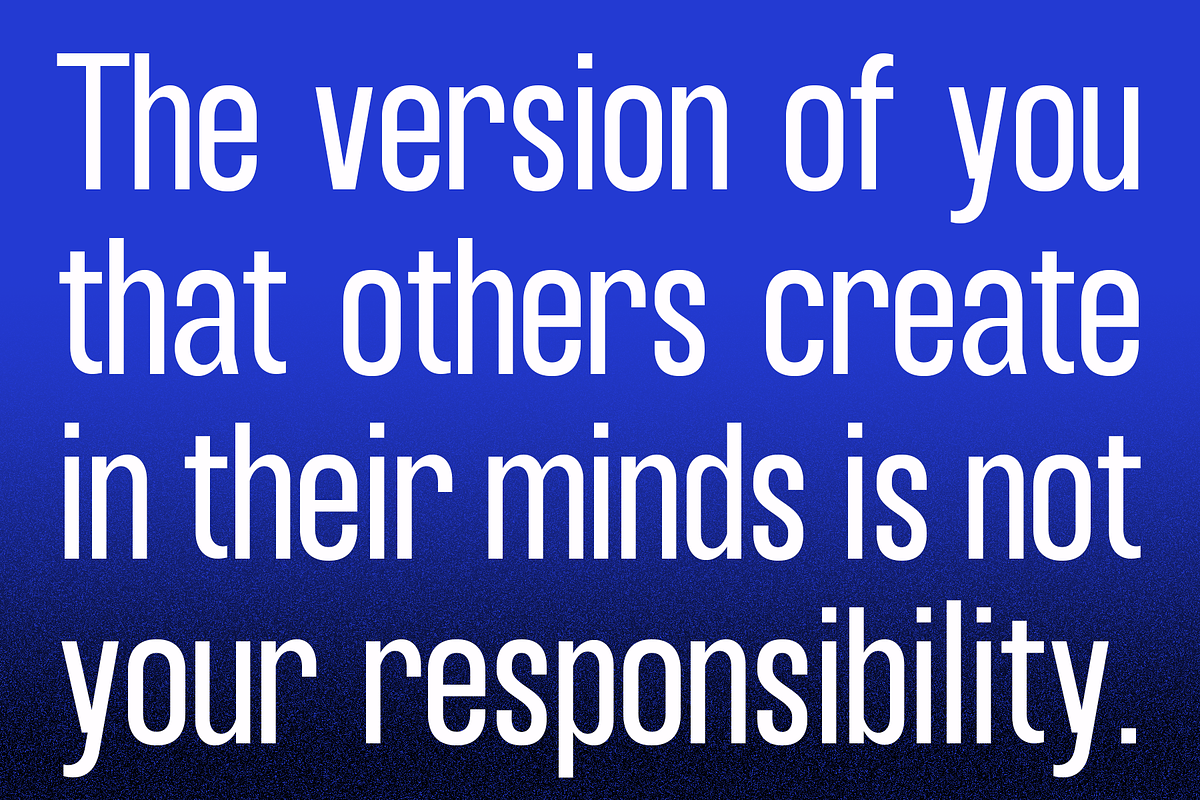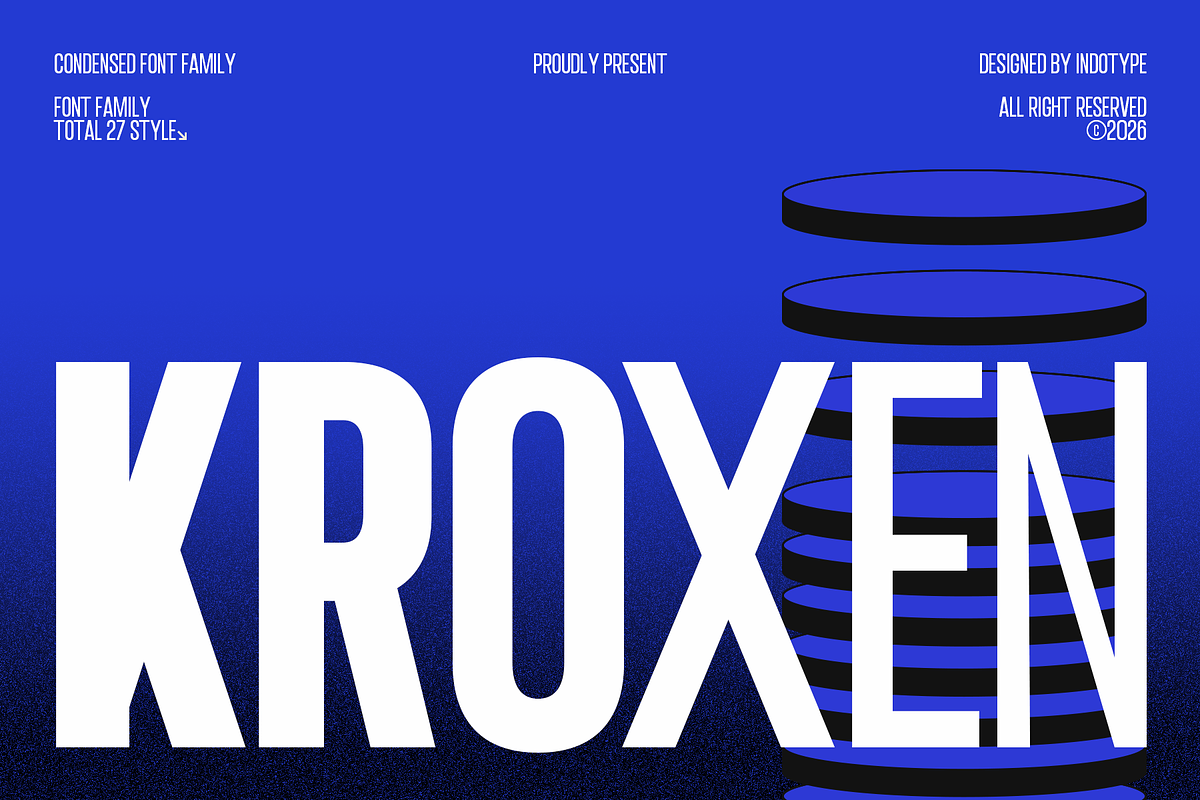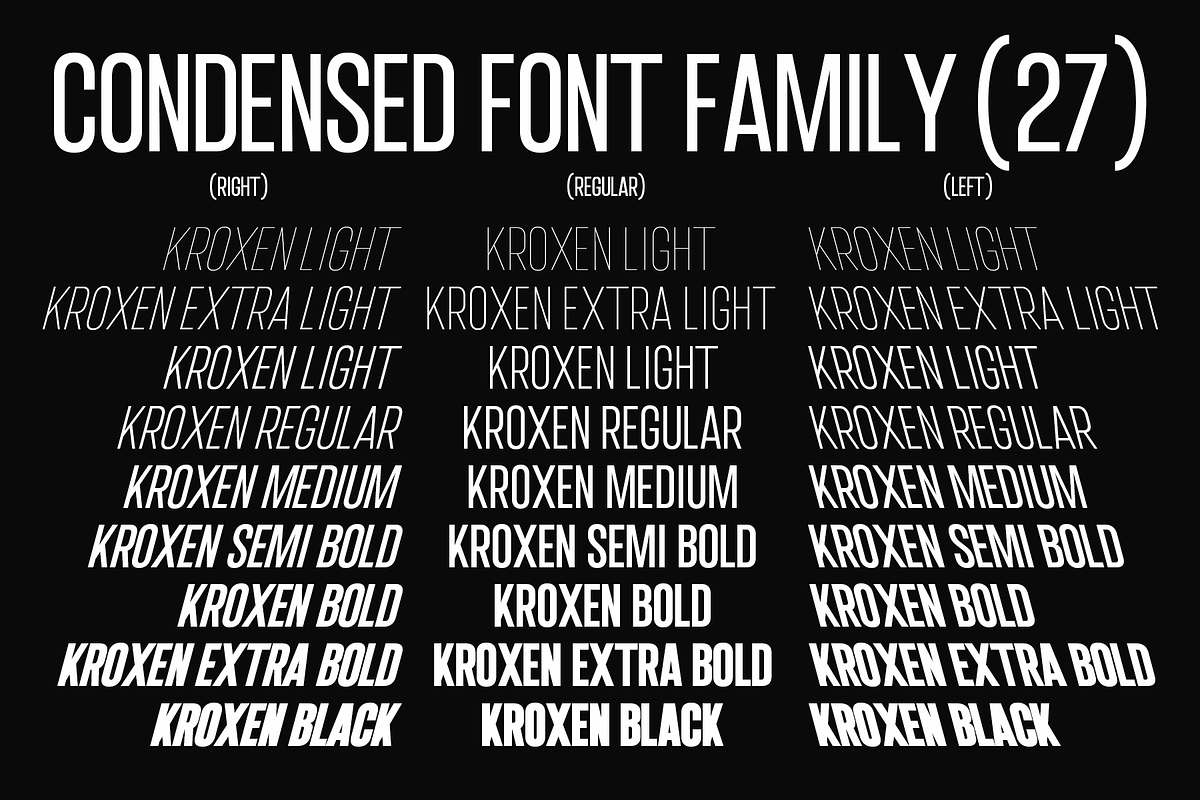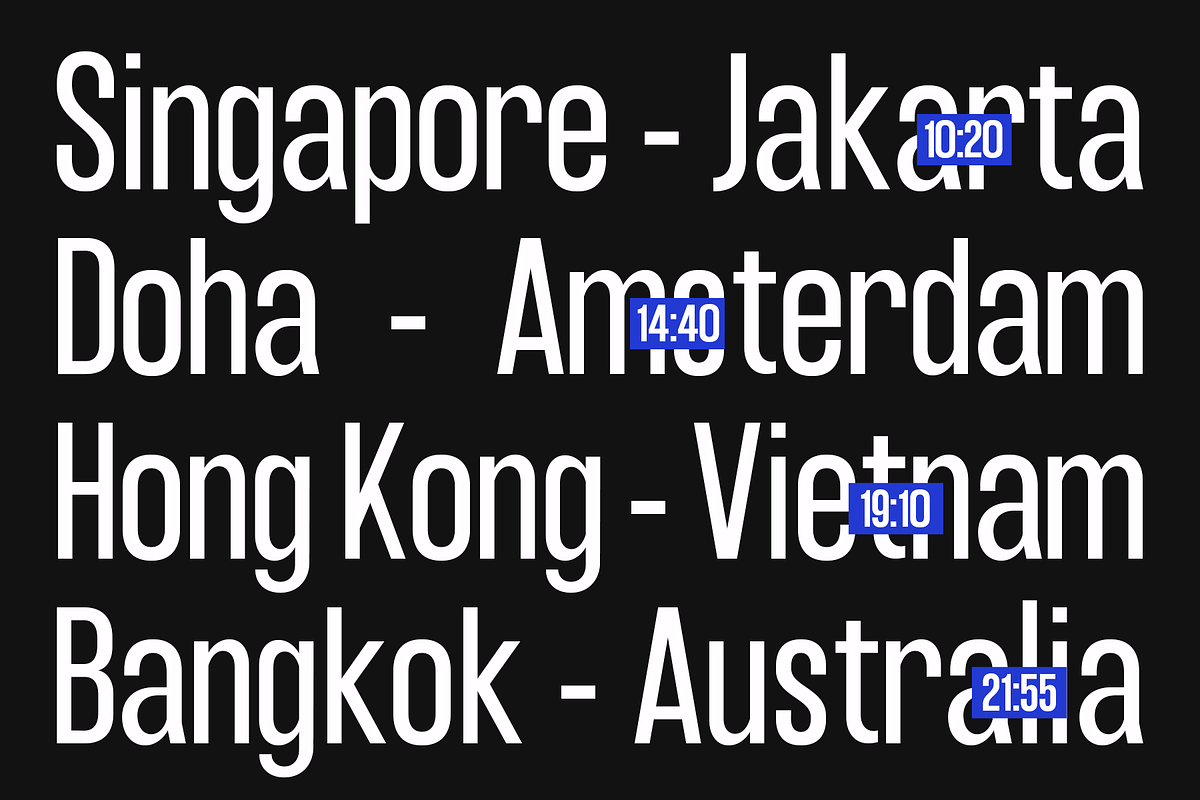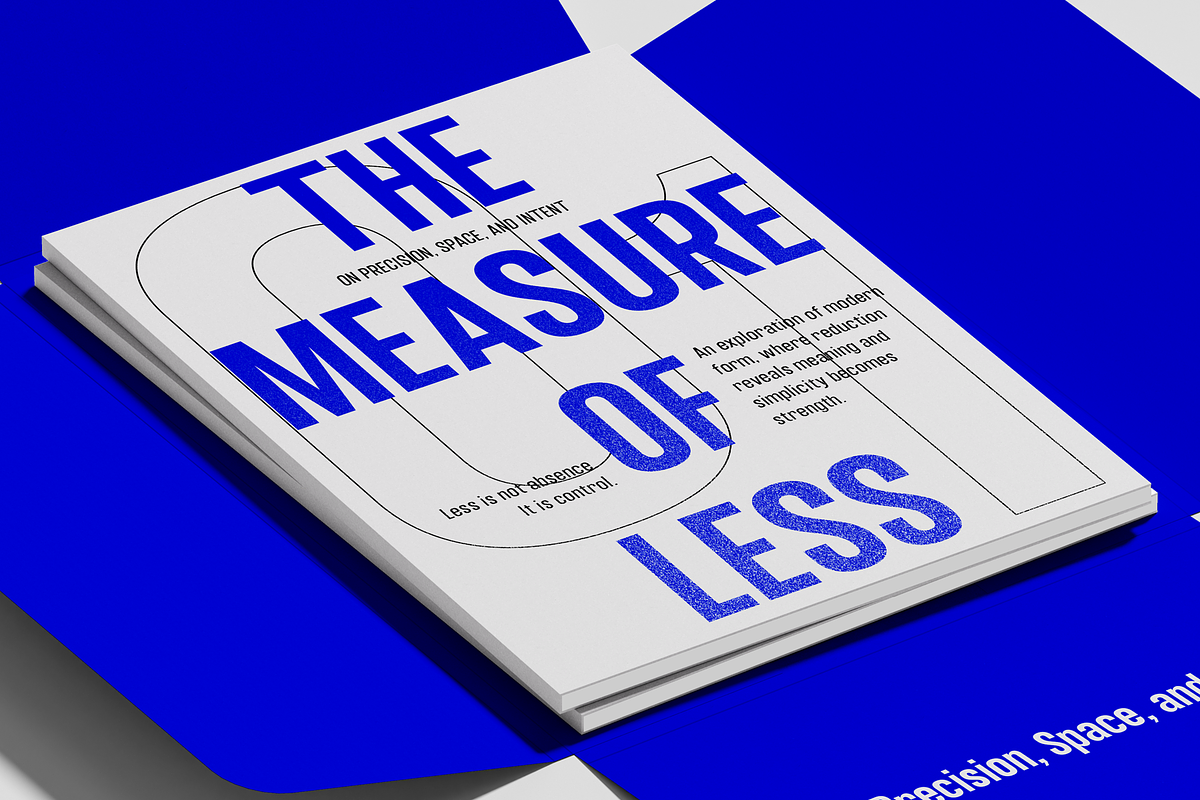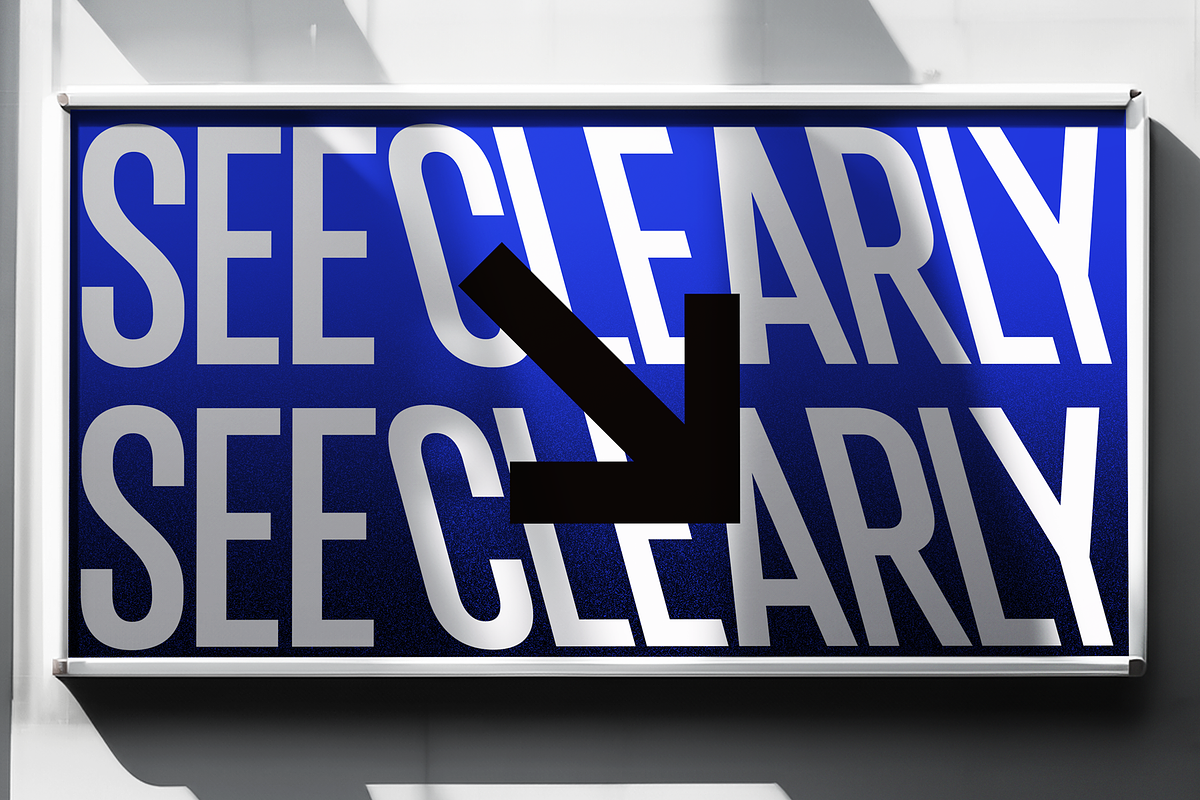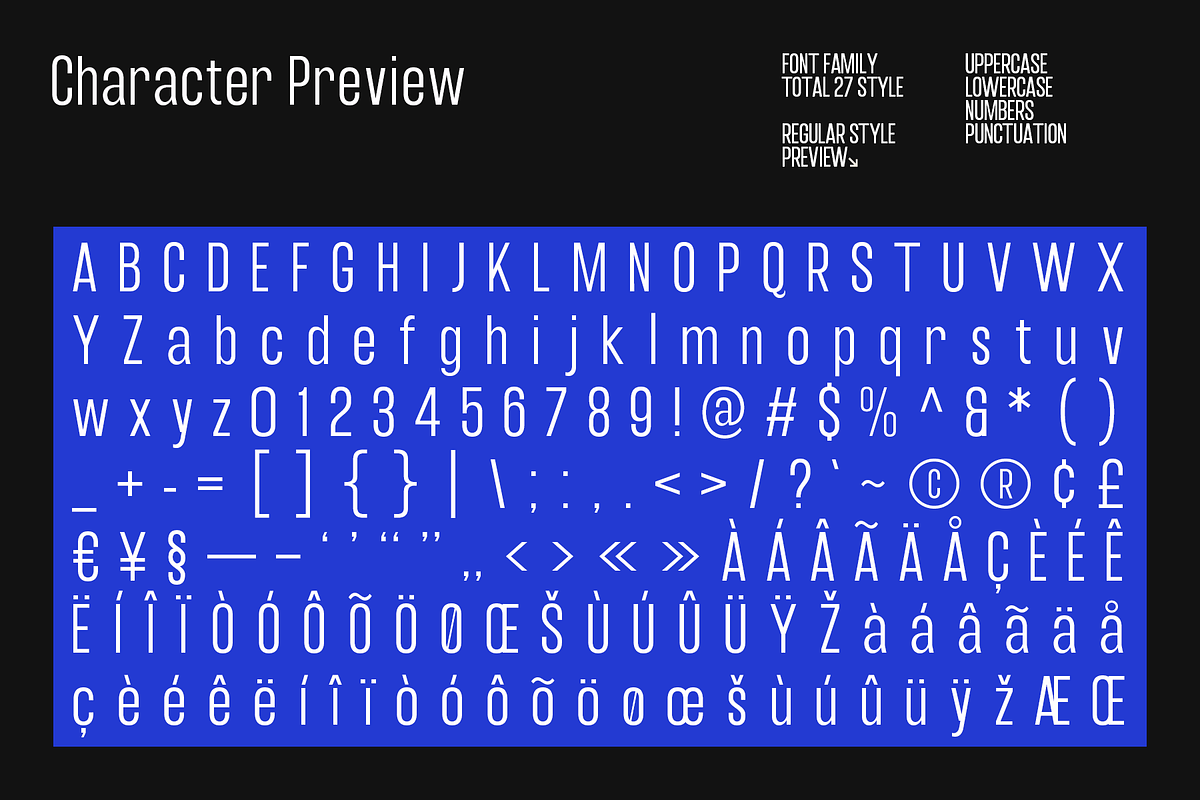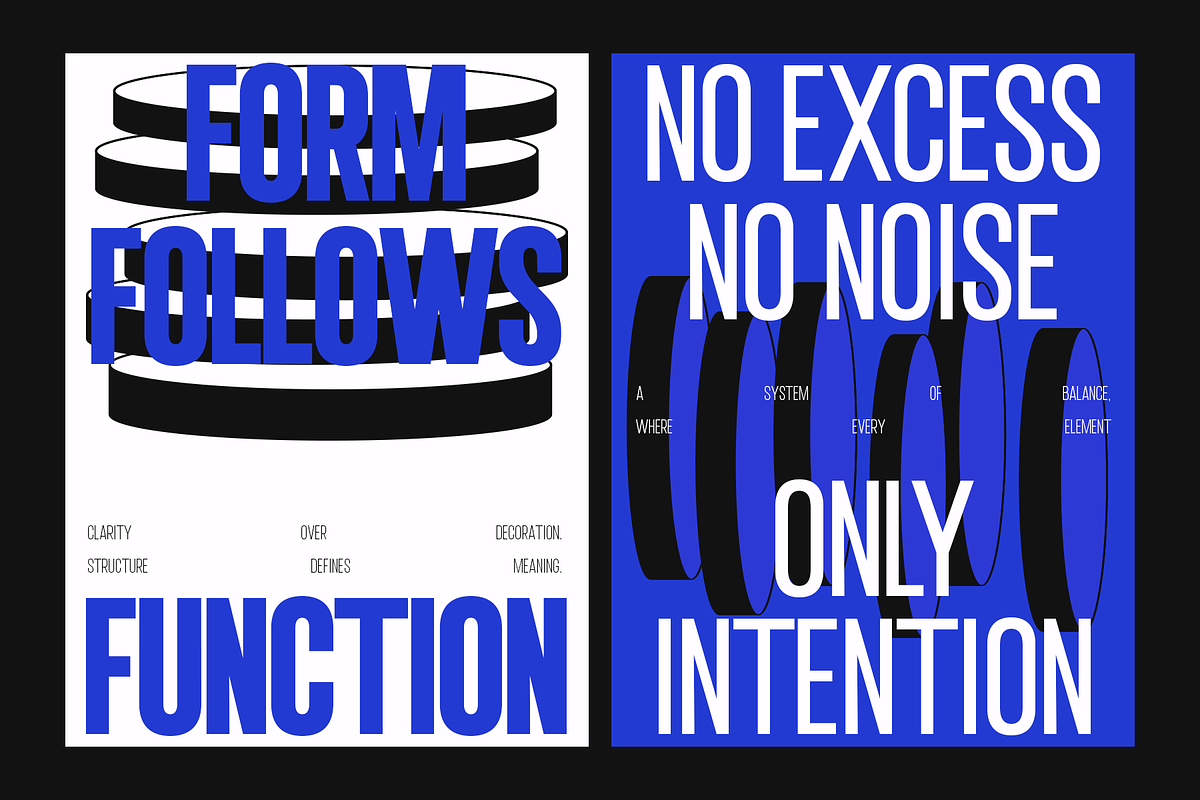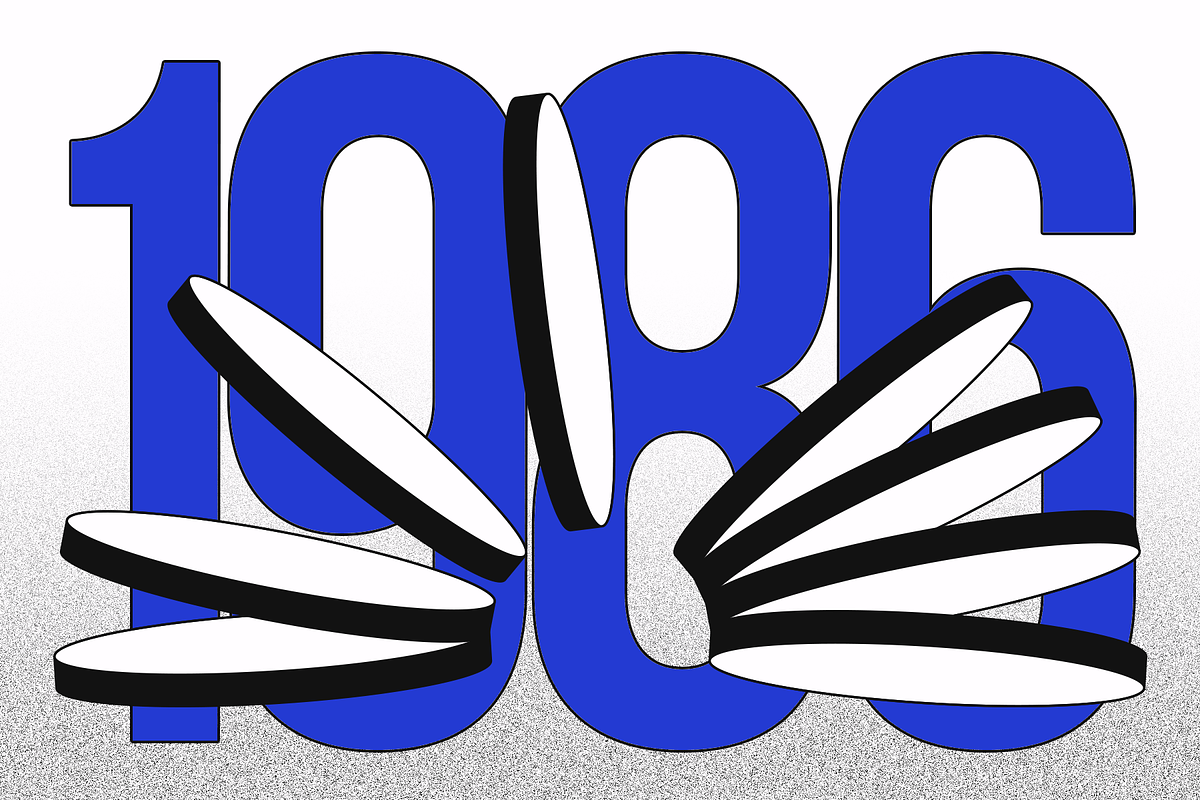
Kroxen - Condensed Font Family
Kroxen is a condensed sans-serif font family of exceptional range and industrial precision. Designed by Indotype, Kroxen delivers 27 styles across a comprehensive weight and width spectrum — making it one of the most versatile condensed type systems available for contemporary design. Where most condensed fonts offer a narrow slice of typographic possibility, Kroxen provides a complete design toolkit: from whisper-thin compressed styles to brutally heavy ultra-condensed display weights, all unified by a coherent geometric vision and an unmistakable character built for high-impact visual communication.
- Design Characteristics
Kroxen is defined by its disciplined geometric construction and its commitment to maximum vertical economy. The letterforms are tall, narrow, and architecturally precise — built on a grid of clean right angles, circular arcs, and uniform stroke relationships that give the family its contemporary, technical aesthetic. There is no unnecessary ornamentation here: every curve, every terminal, every junction is resolved with the efficiency of a well-engineered system. The upright stance of Kroxen's letterforms — combined with its generous cap height and tight side bearings — makes it ideal for situations where vertical information density is essential without sacrificing visual impact. Headlines can be set at massive scale while consuming a fraction of the horizontal space that conventional sans-serifs would require. This is the fundamental promise of a great condensed family, and Kroxen delivers it without compromise across all 27 styles.